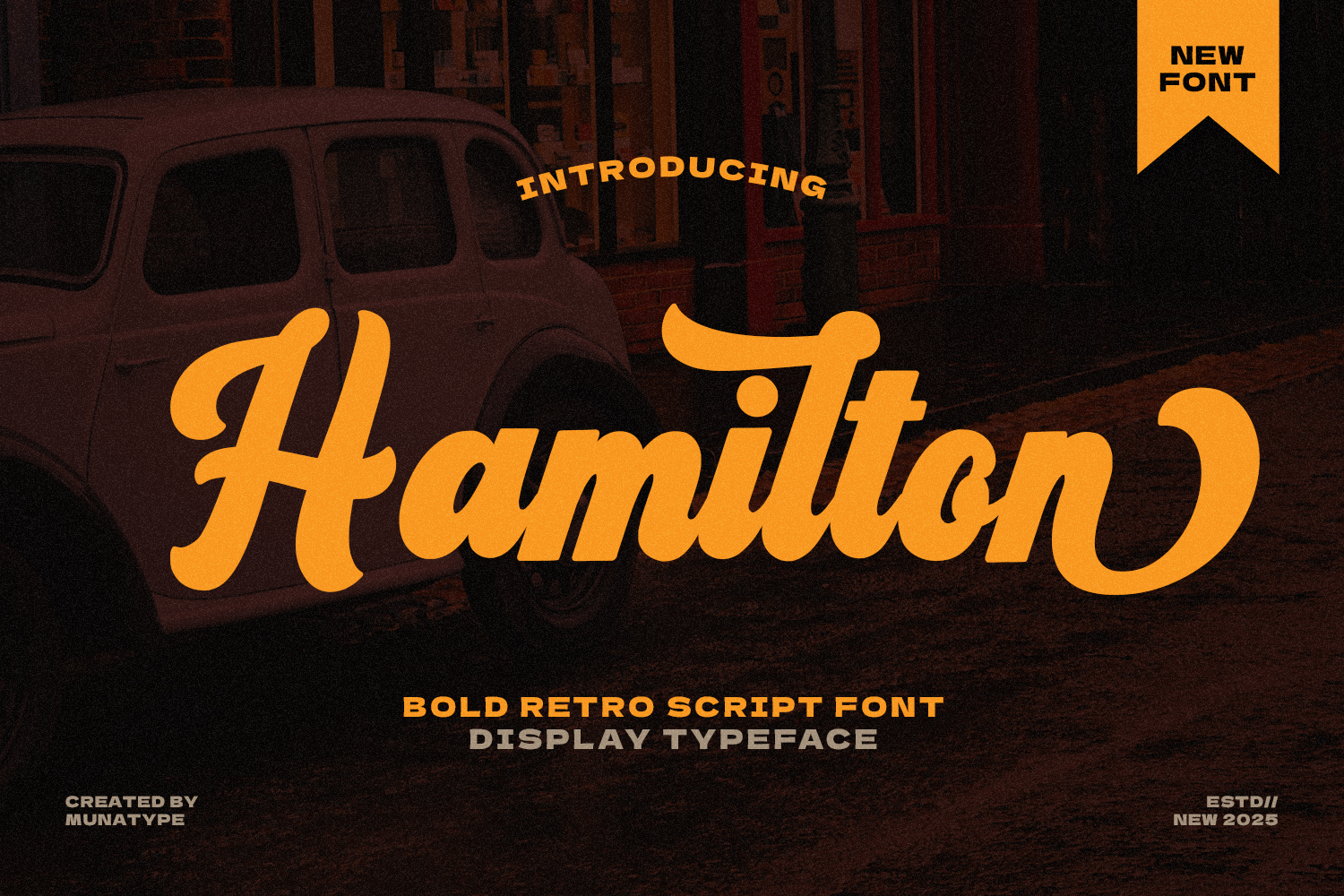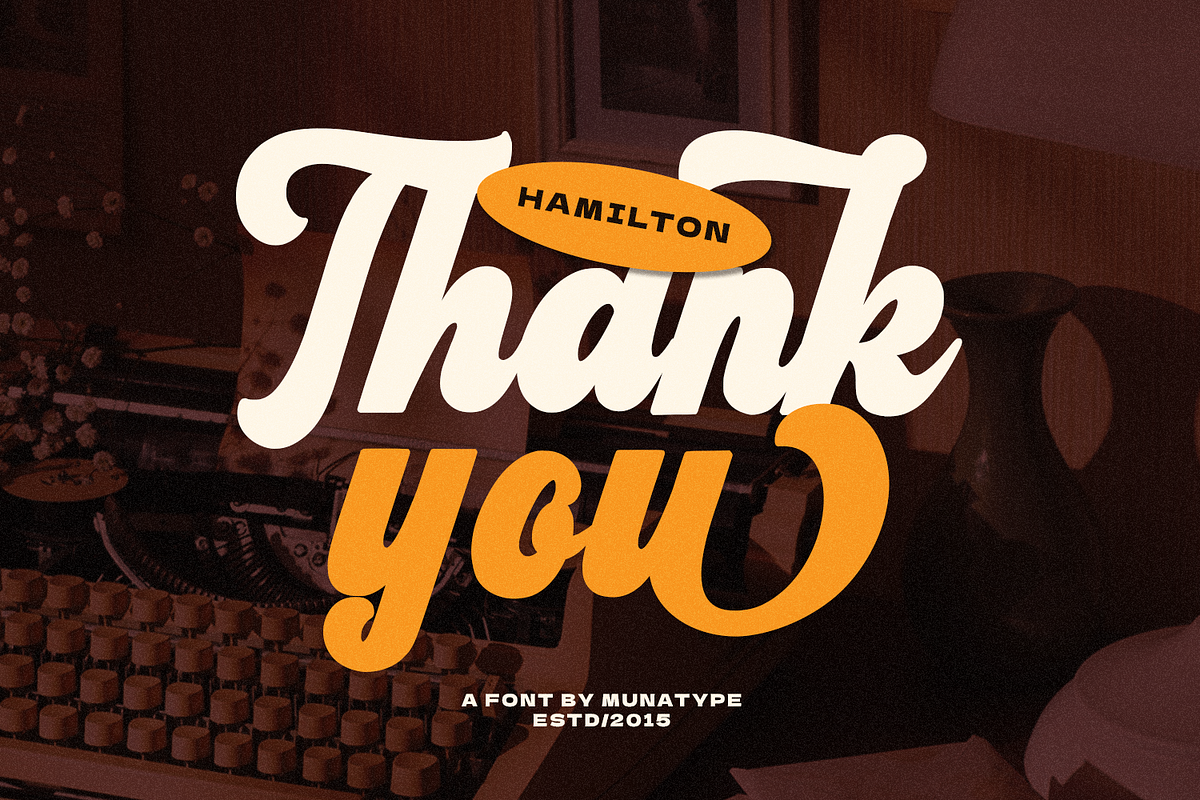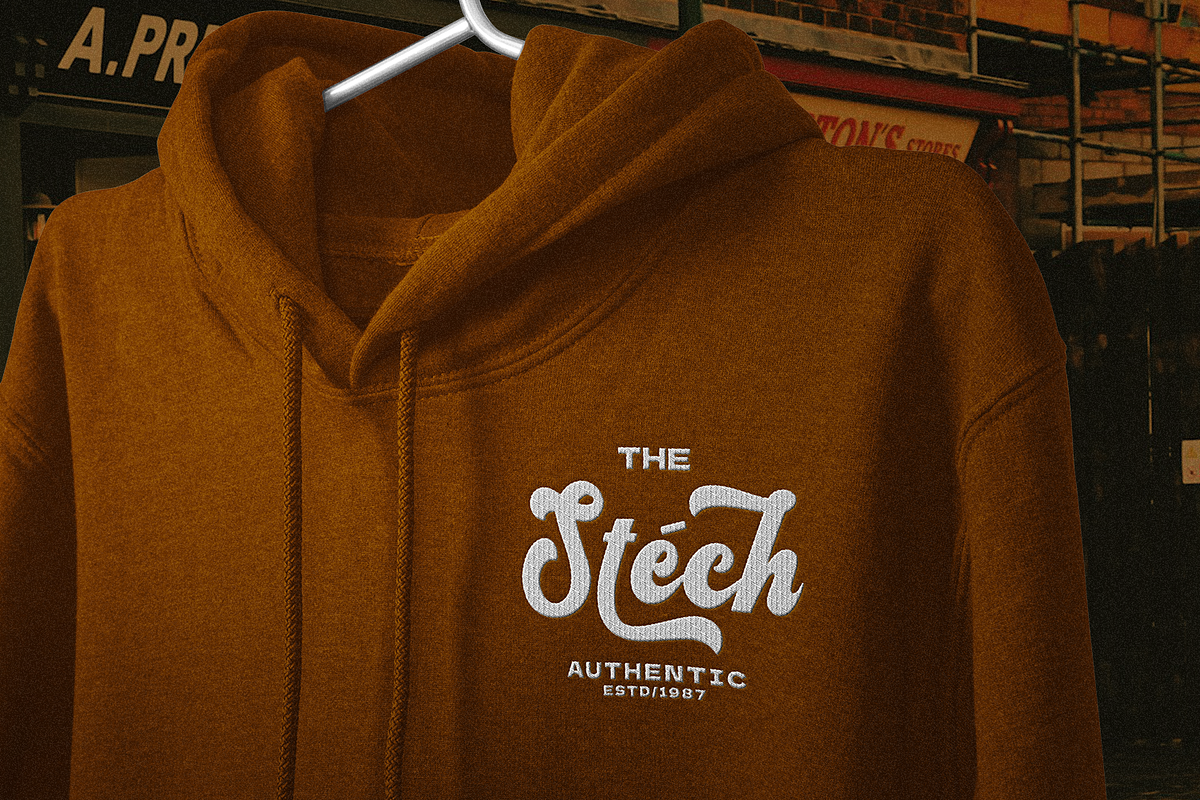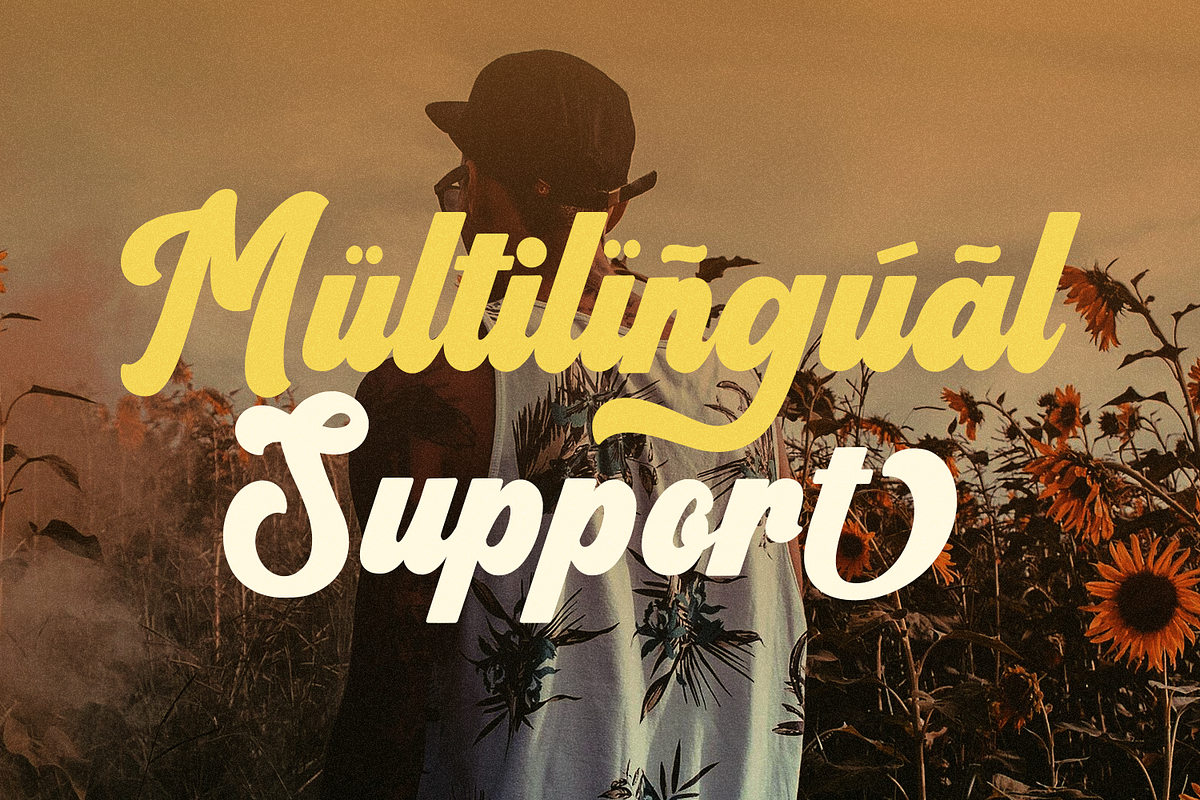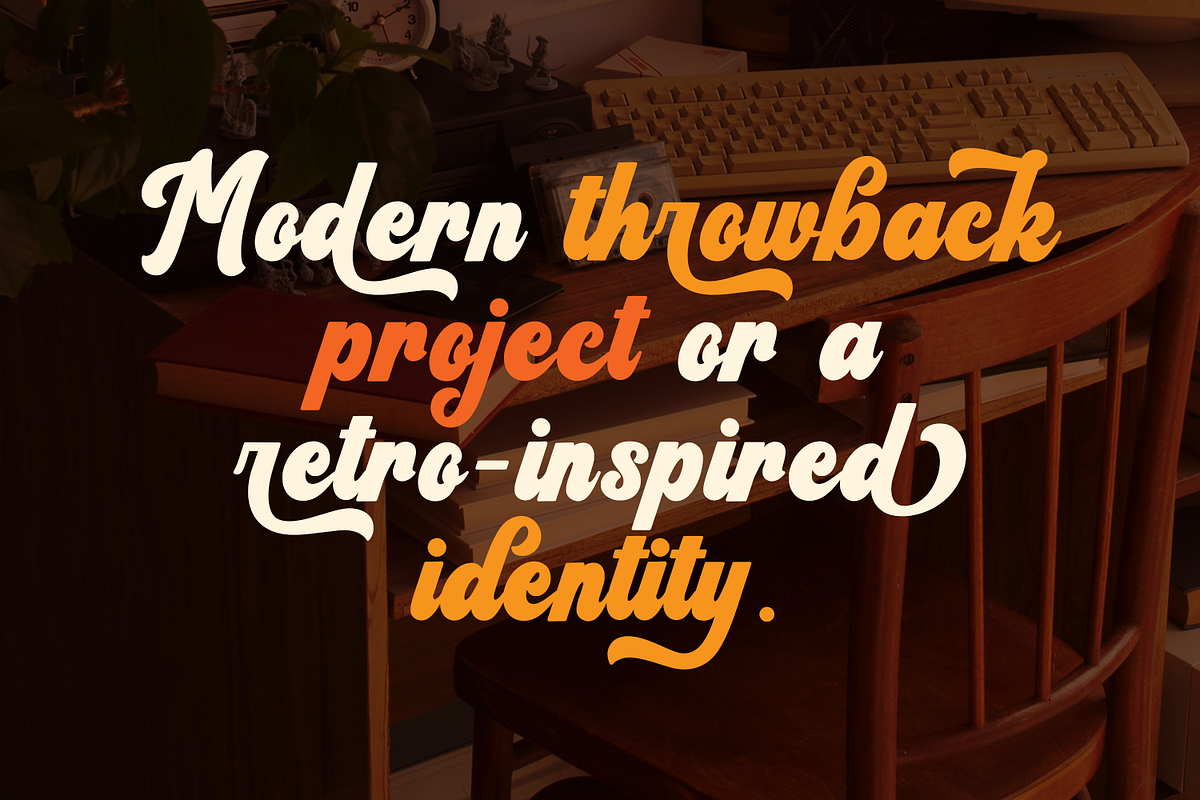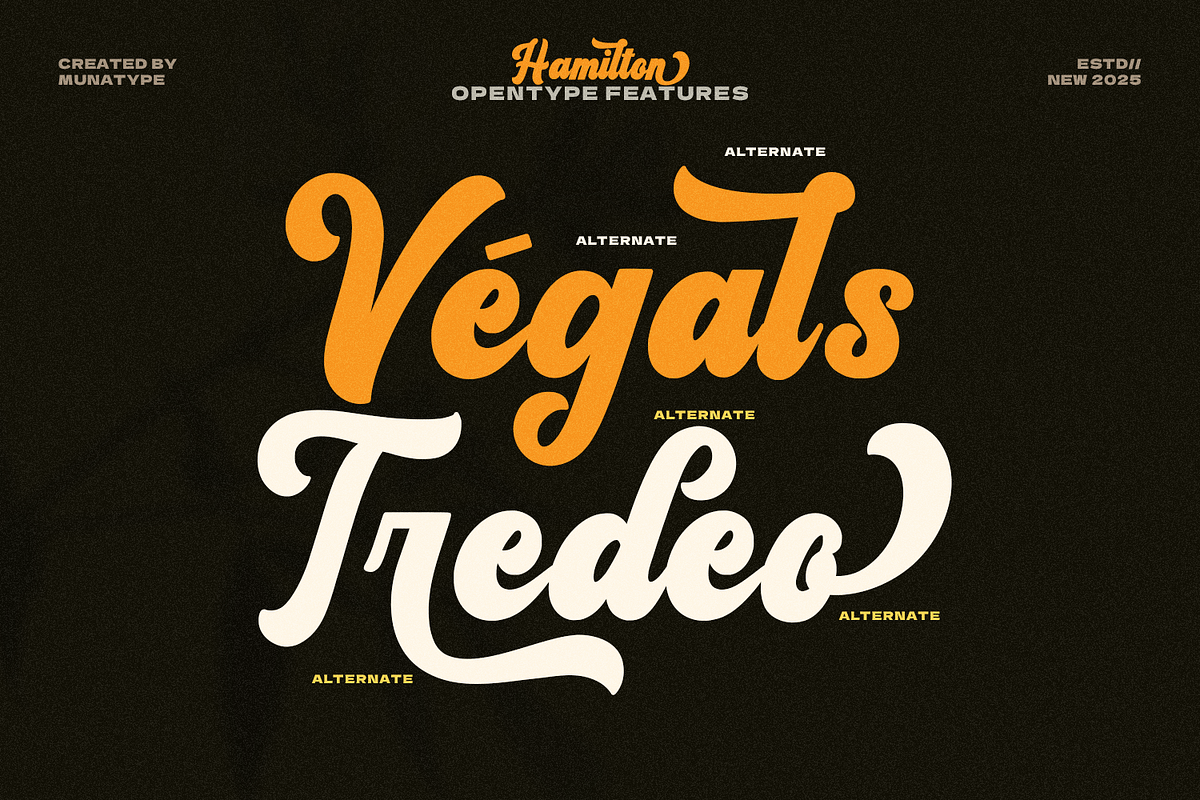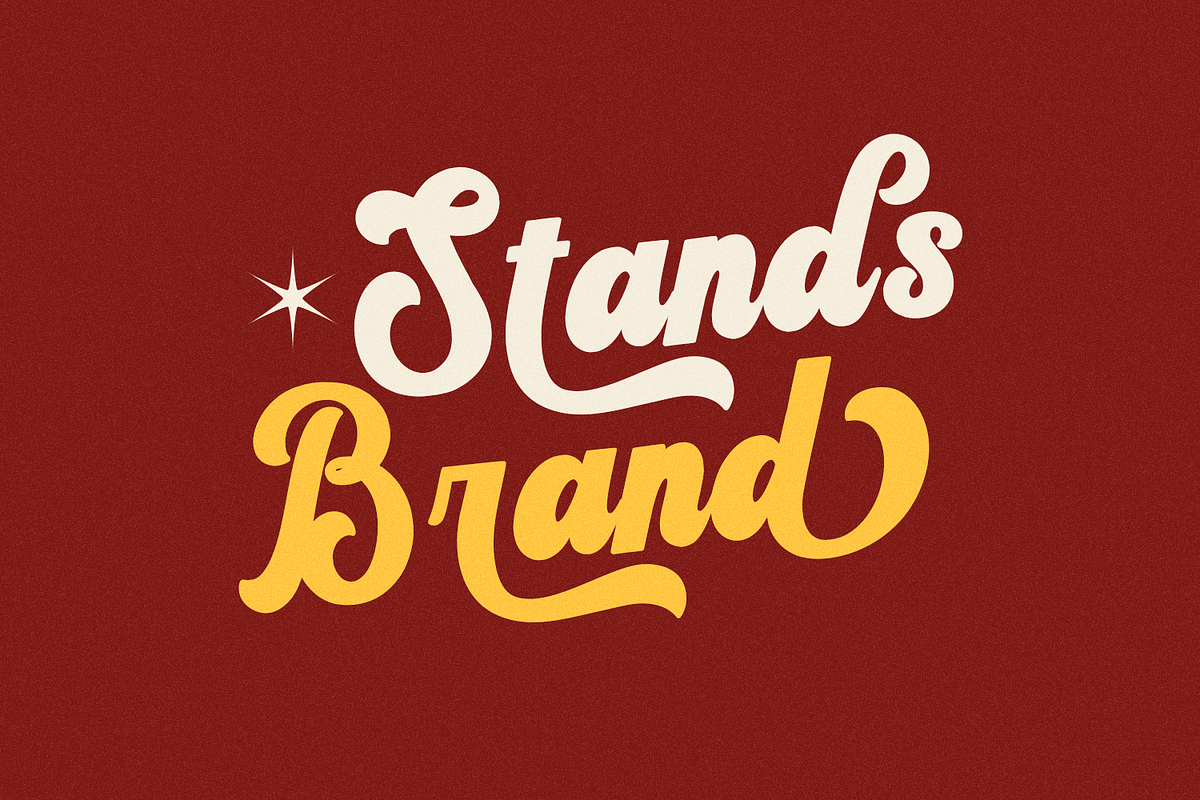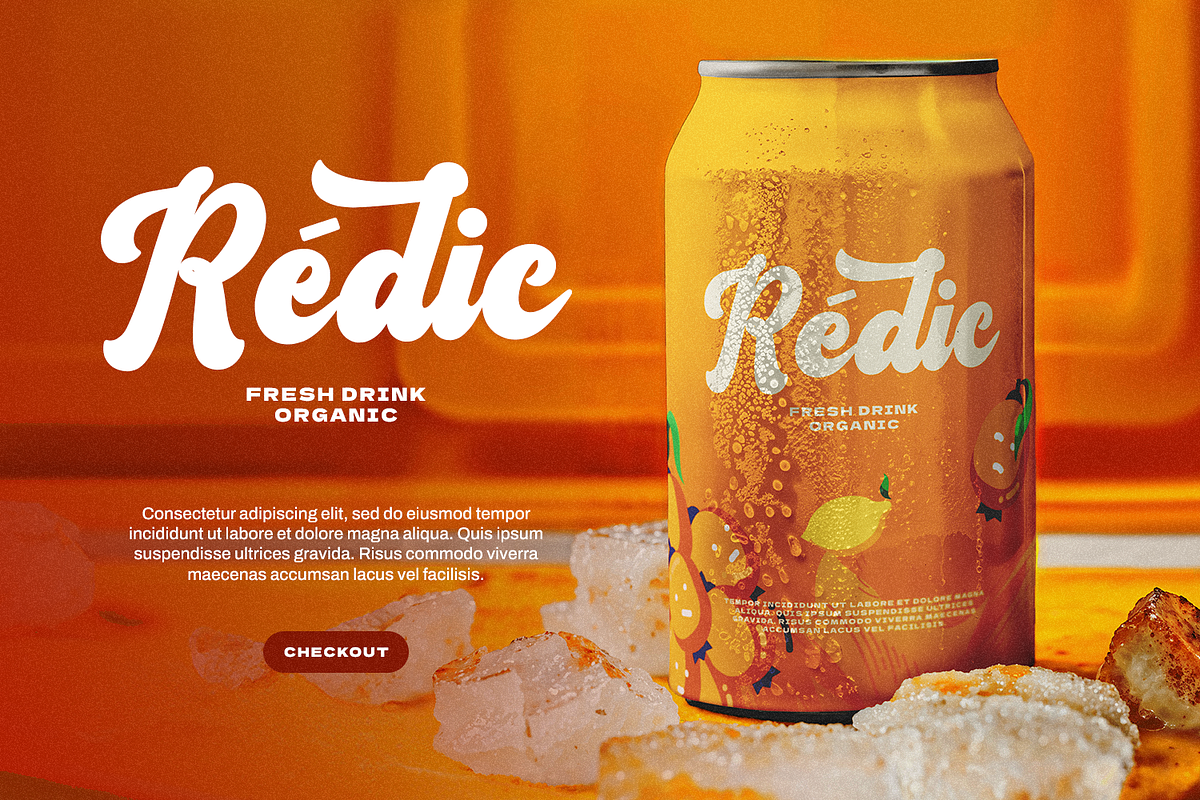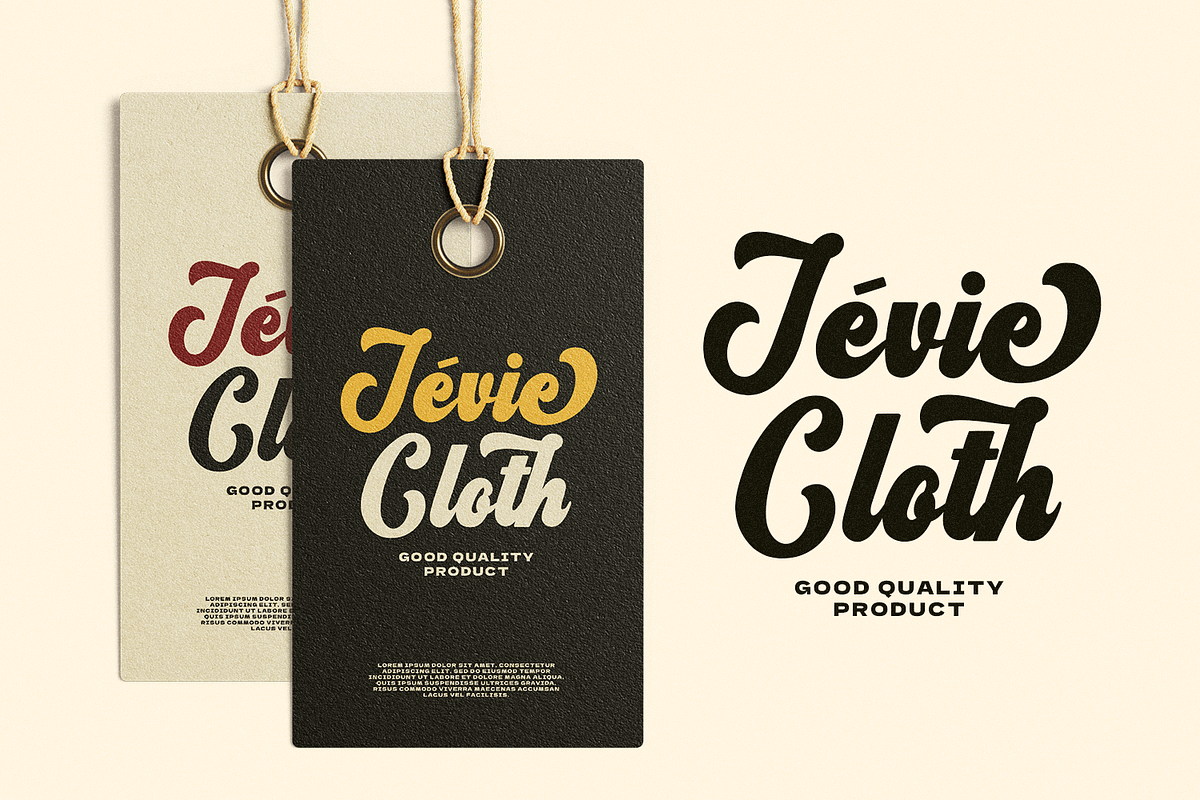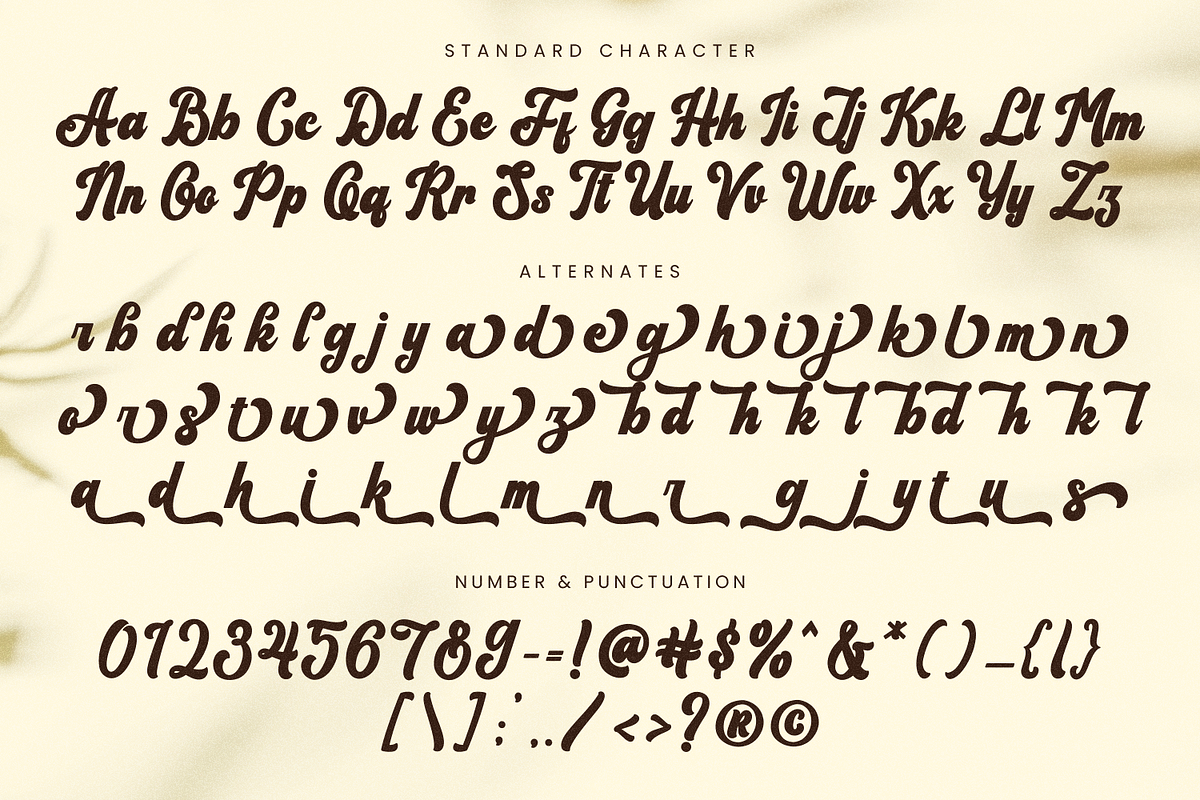
Hamilton - Bold Script Font
Introducing Hamilton – a bold script handwritten font that beautifully blends vintage charm with a touch of modern flair. Designed with sweeping strokes and confident curves, each character in Hamilton carries a distinctive personality, making it perfect for retro designs, signature branding, and nostalgic themes. Its handcrafted look adds authenticity and warmth, ideal for giving your projects a timeless feel.
Hamilton stands out with its beginning and ending swashes on every character, creating a natural and elegant flow. Whether you're crafting festive designs for Christmas, New Year, Winter, or Easter, or adding a personalized touch to Thanksgiving invitations, Cricut crafts, embroidery, or SVG projects, this font delivers stylish versatility. Its bold, flowing script adds a sophisticated yet playful vibe, perfect for any lettering or crafting enthusiast.
- Standard & Multilingual glyphs.
- Alternate glyphs & Unique Ligature.